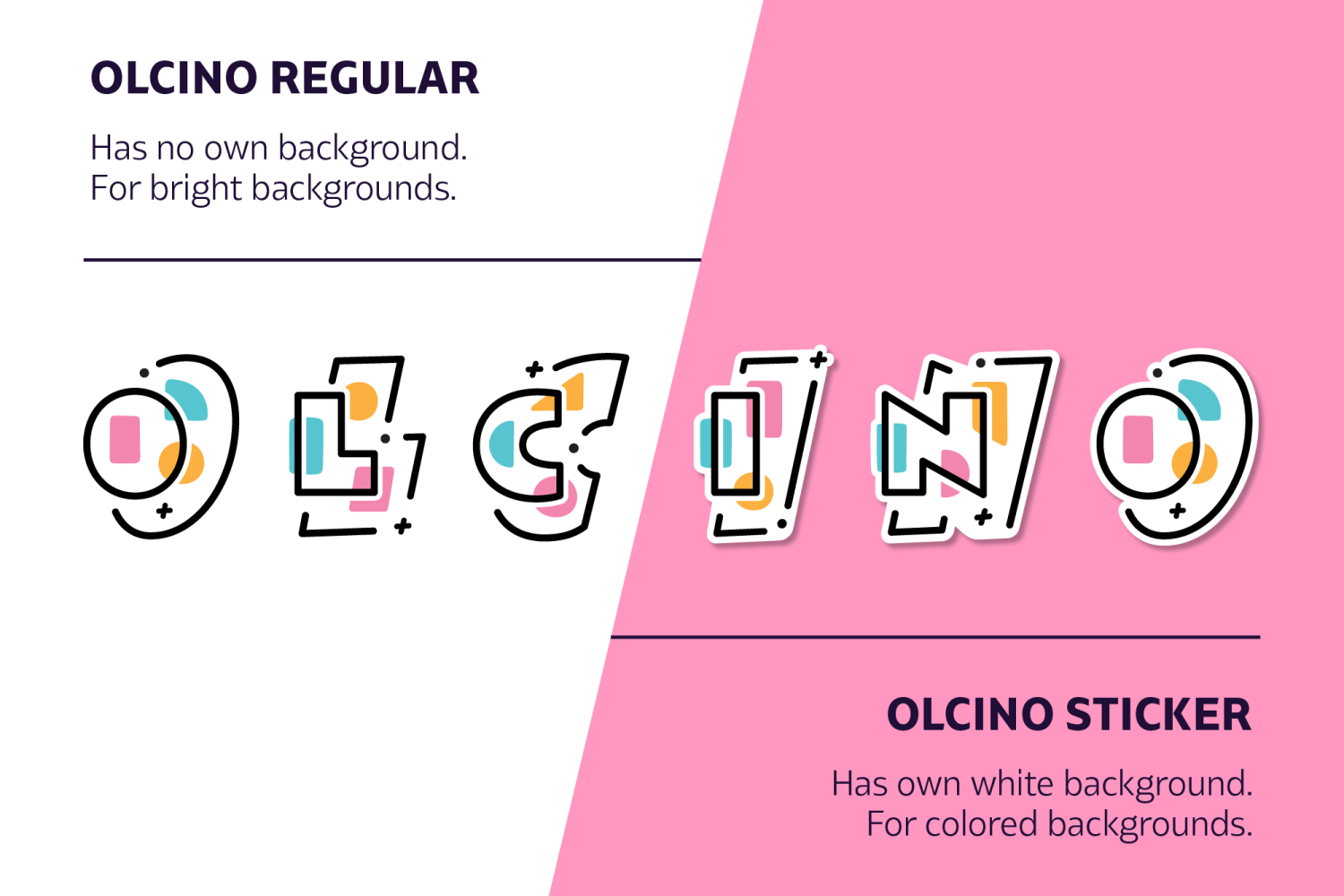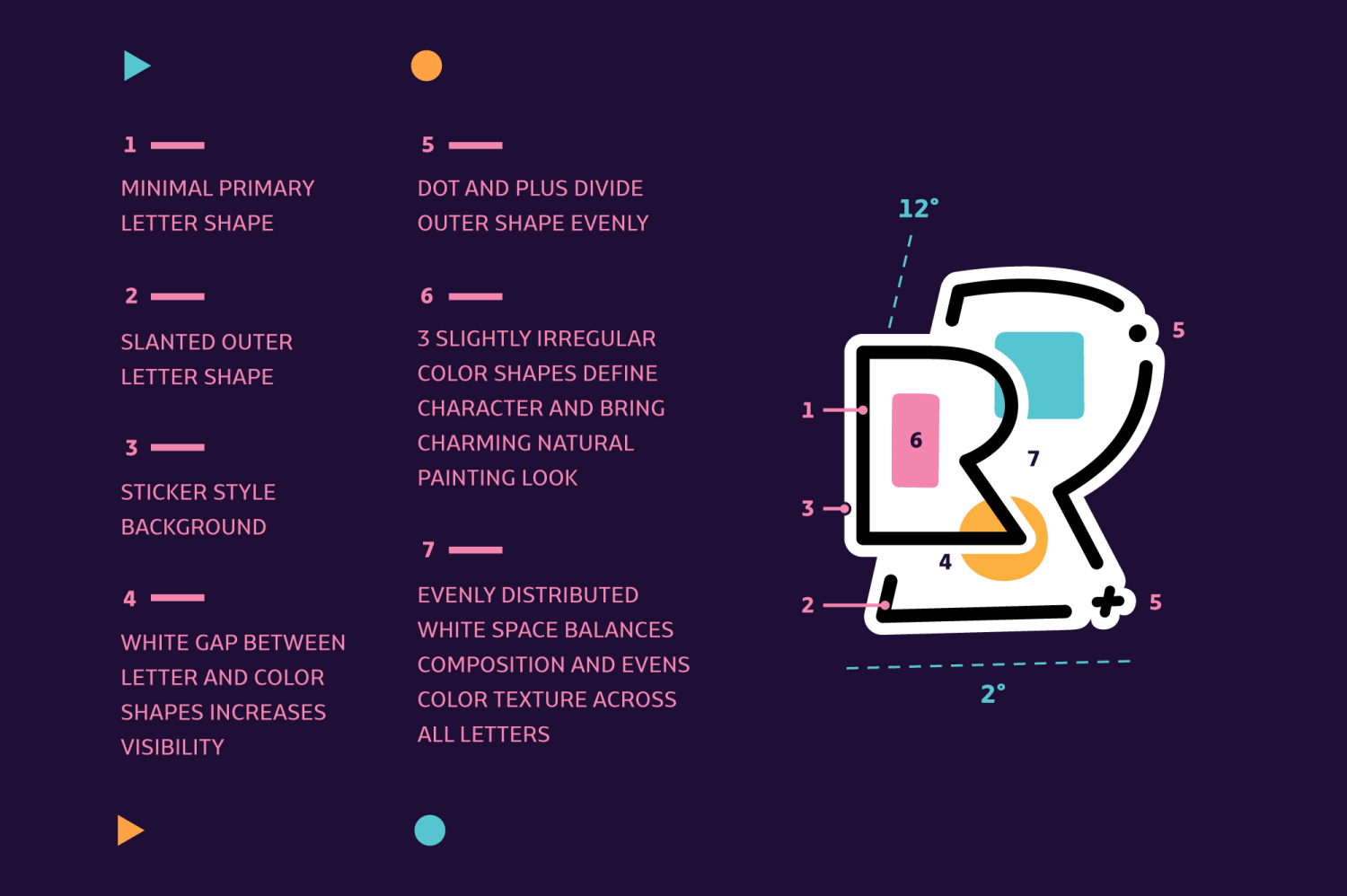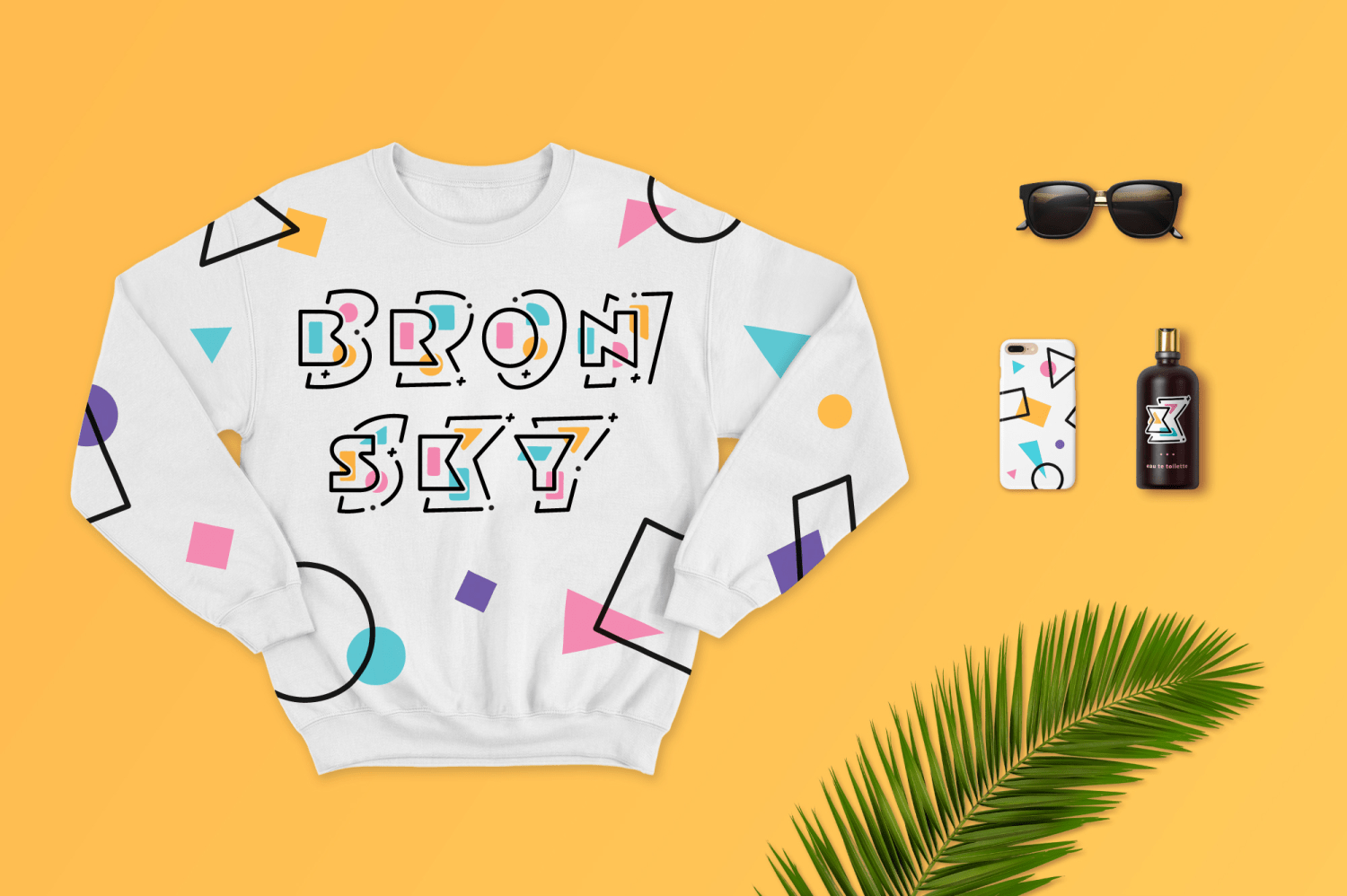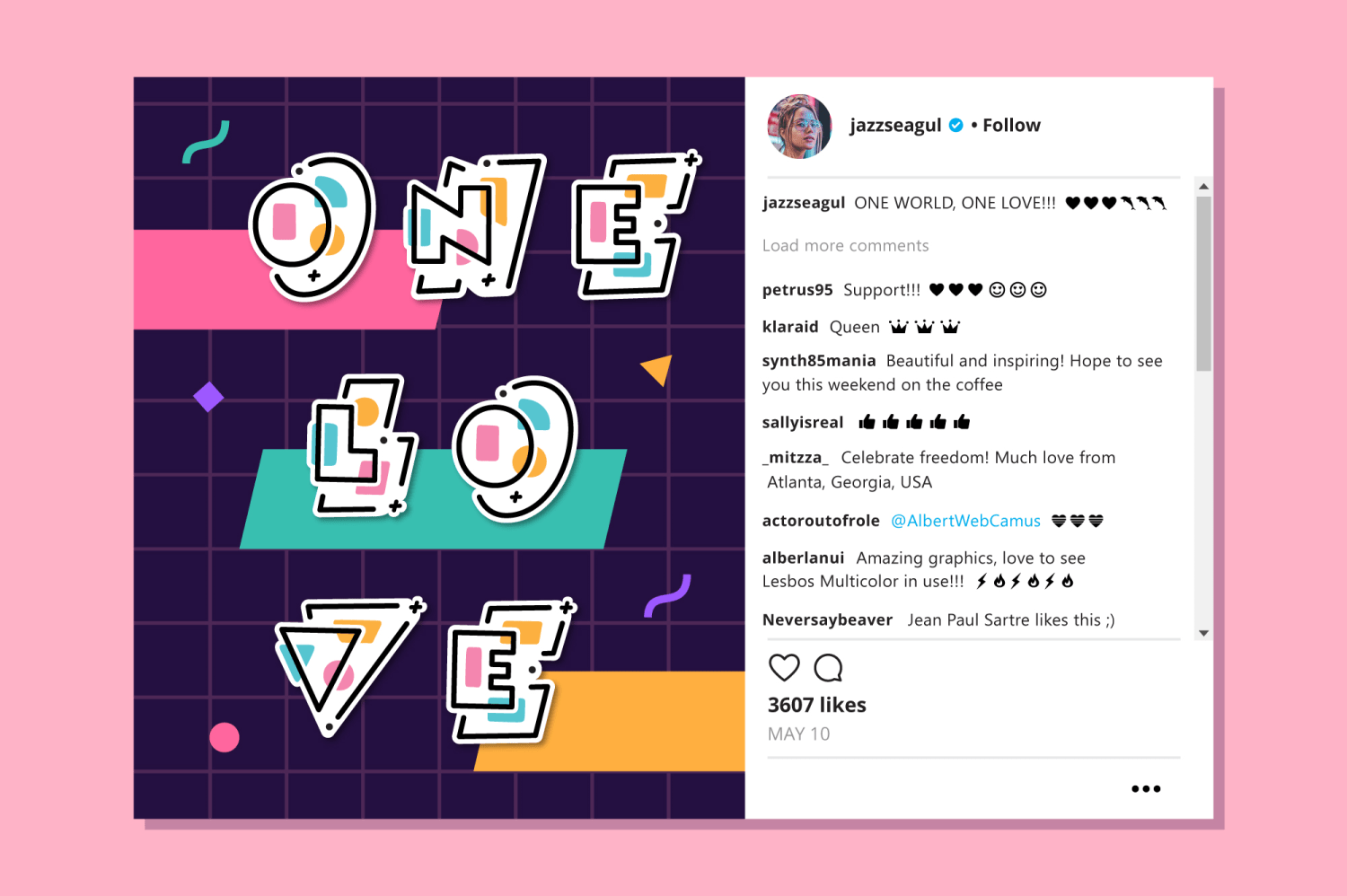
Olcino is a charming multicolor font that celebrates freedom, love, and peace. It is inspired by the joy of life, optimism, and visiting new places. The first sketches for it were made while looking at the beautiful Aegean Sea. A gentle yet juicy color…